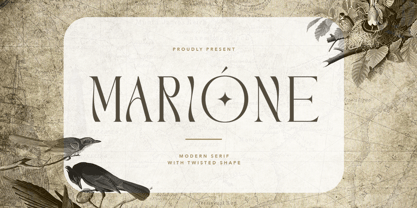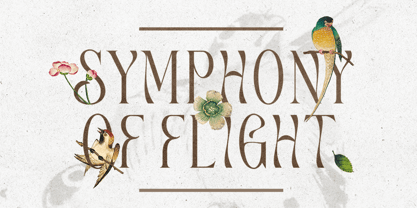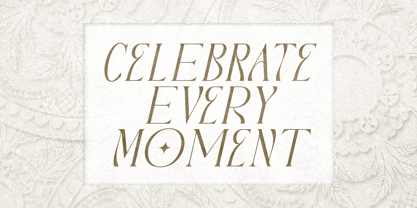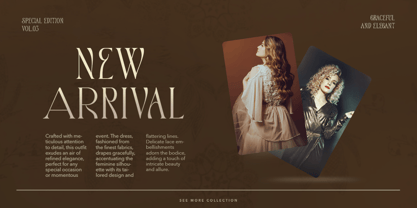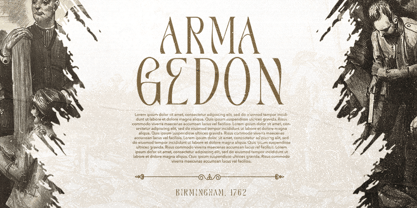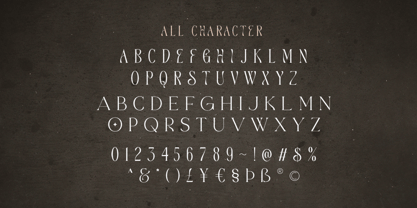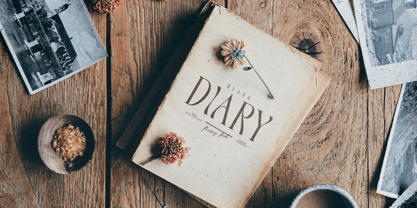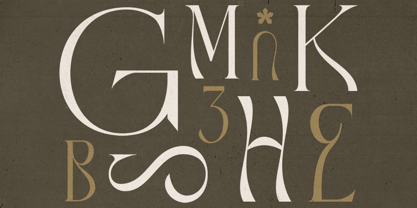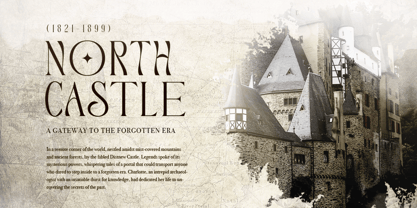
Marione
by Bale Type
The Marione Font Family was designed by Dzikrul Aulia and published by Bale Type. Marione contains 2 styles and family package options.
Marione is a modern serif with twisted shape. Come with tall unique uppercase and classic wide lowercase, this font will make your project looks stunning especially when you combine them in one word. You can use this font for any purpose, such as wedding invitation, book cover, poster, and any other project that need a typeface that have unique looks. This font also support multi language!
Designers: Dzikrul Aulia
Publisher: Bale Type
Foundry: Bale Type
Design Owner: Bale Type